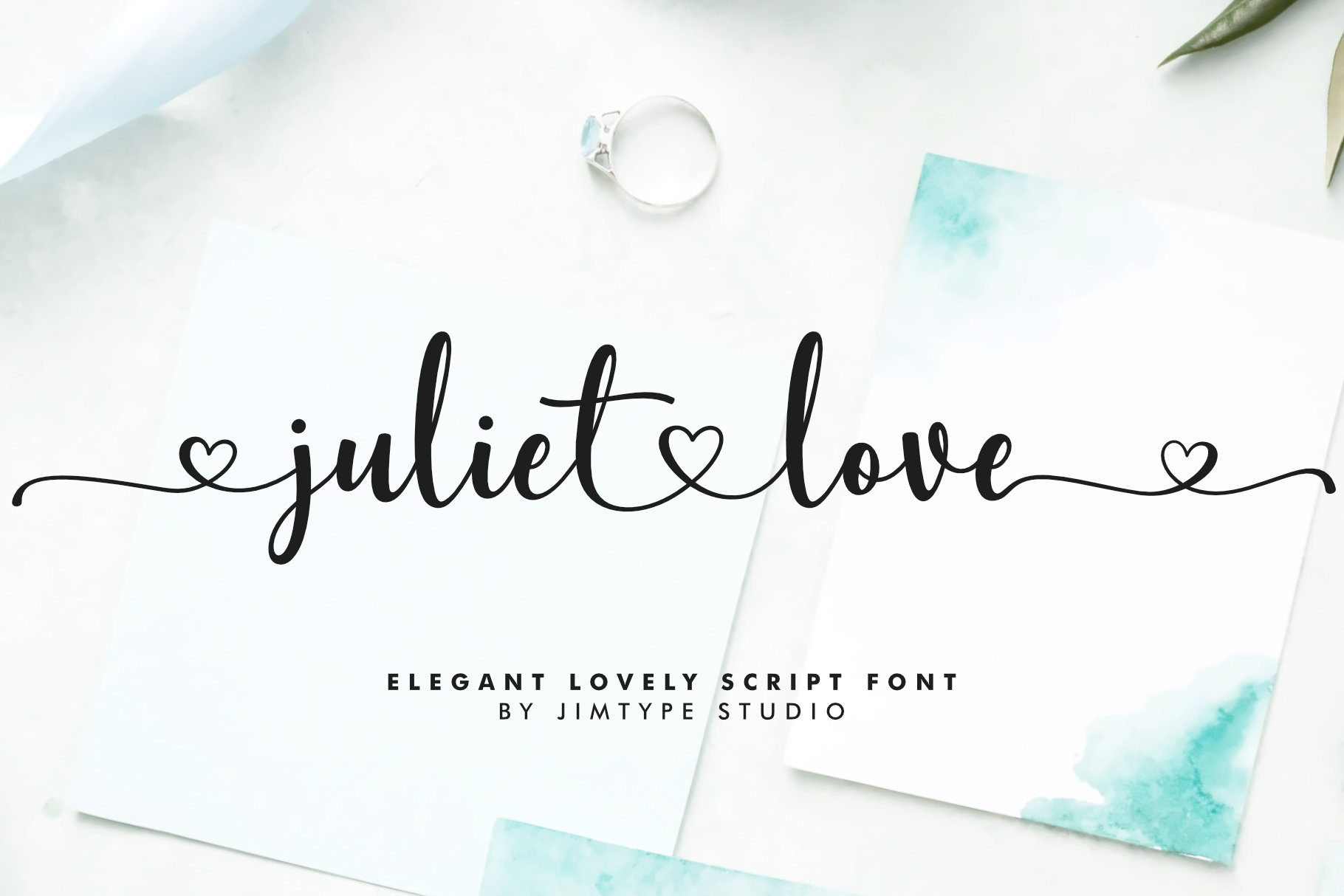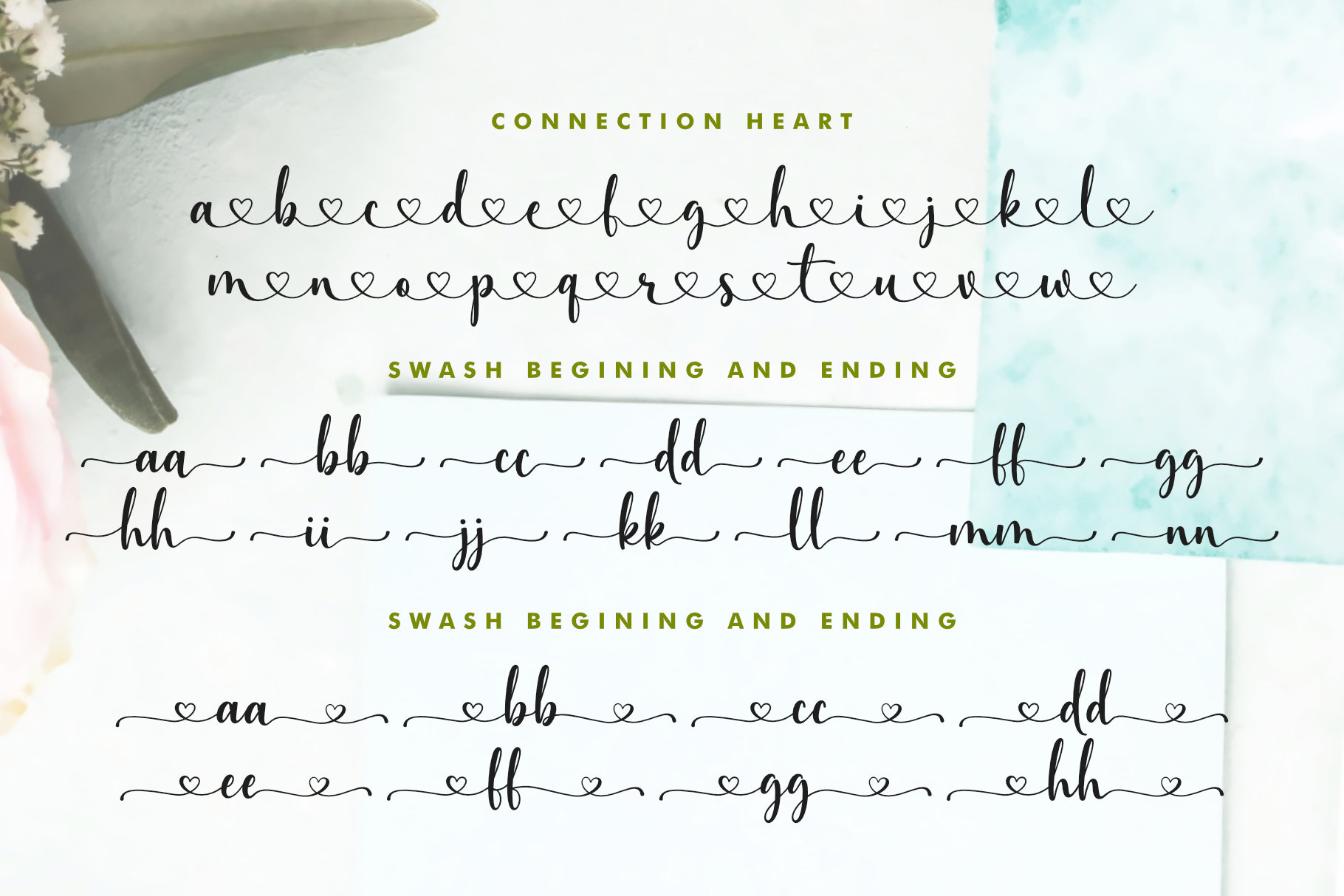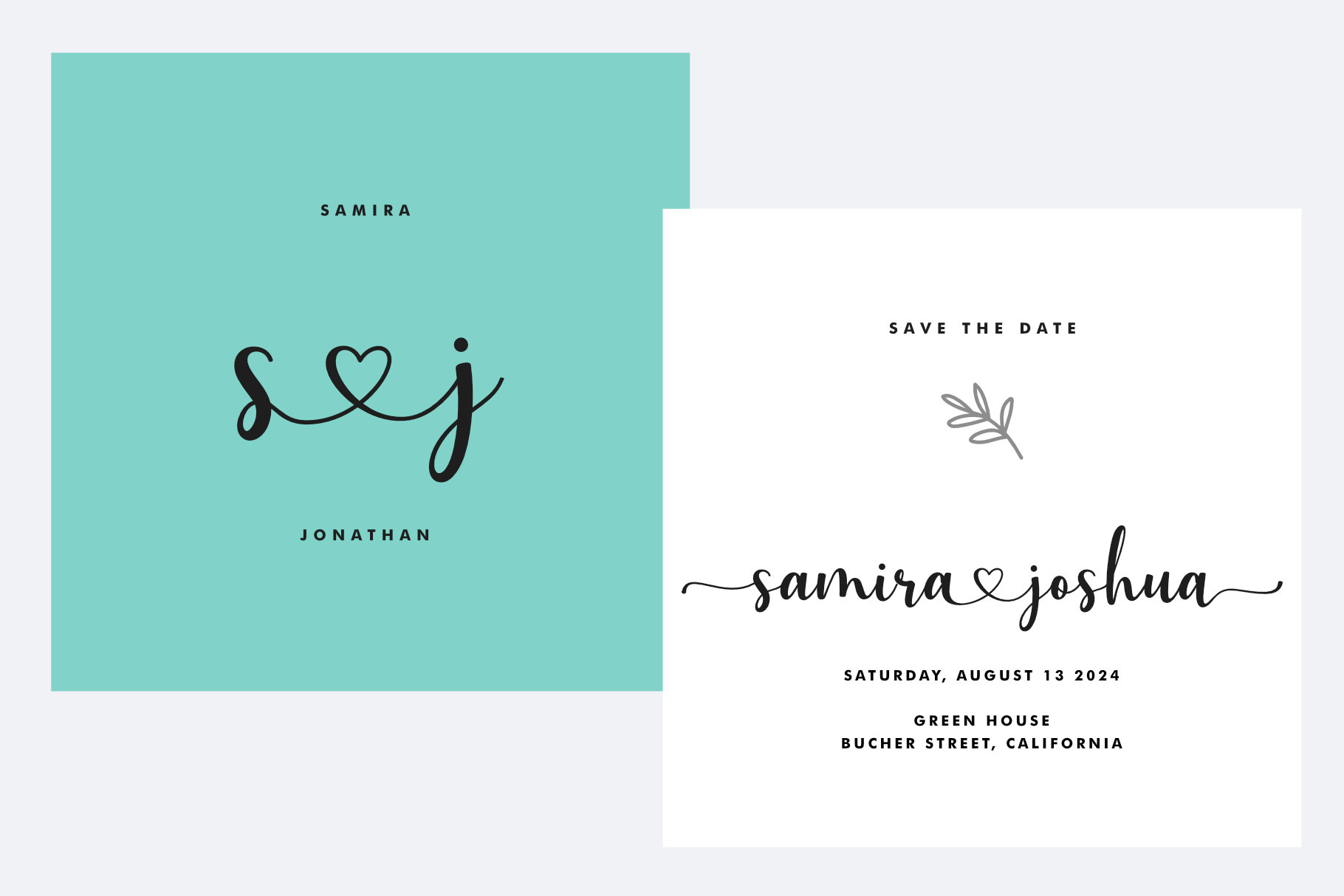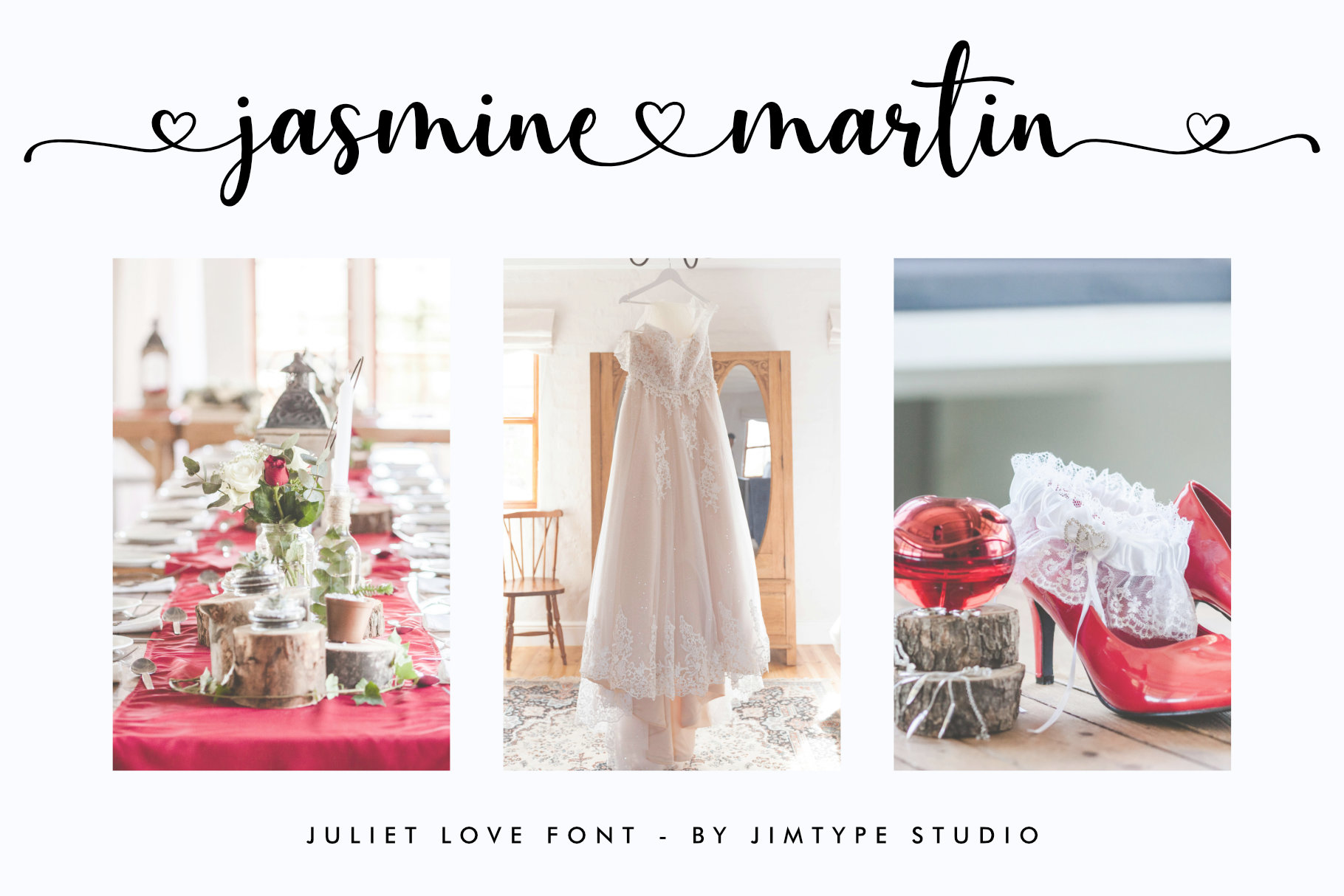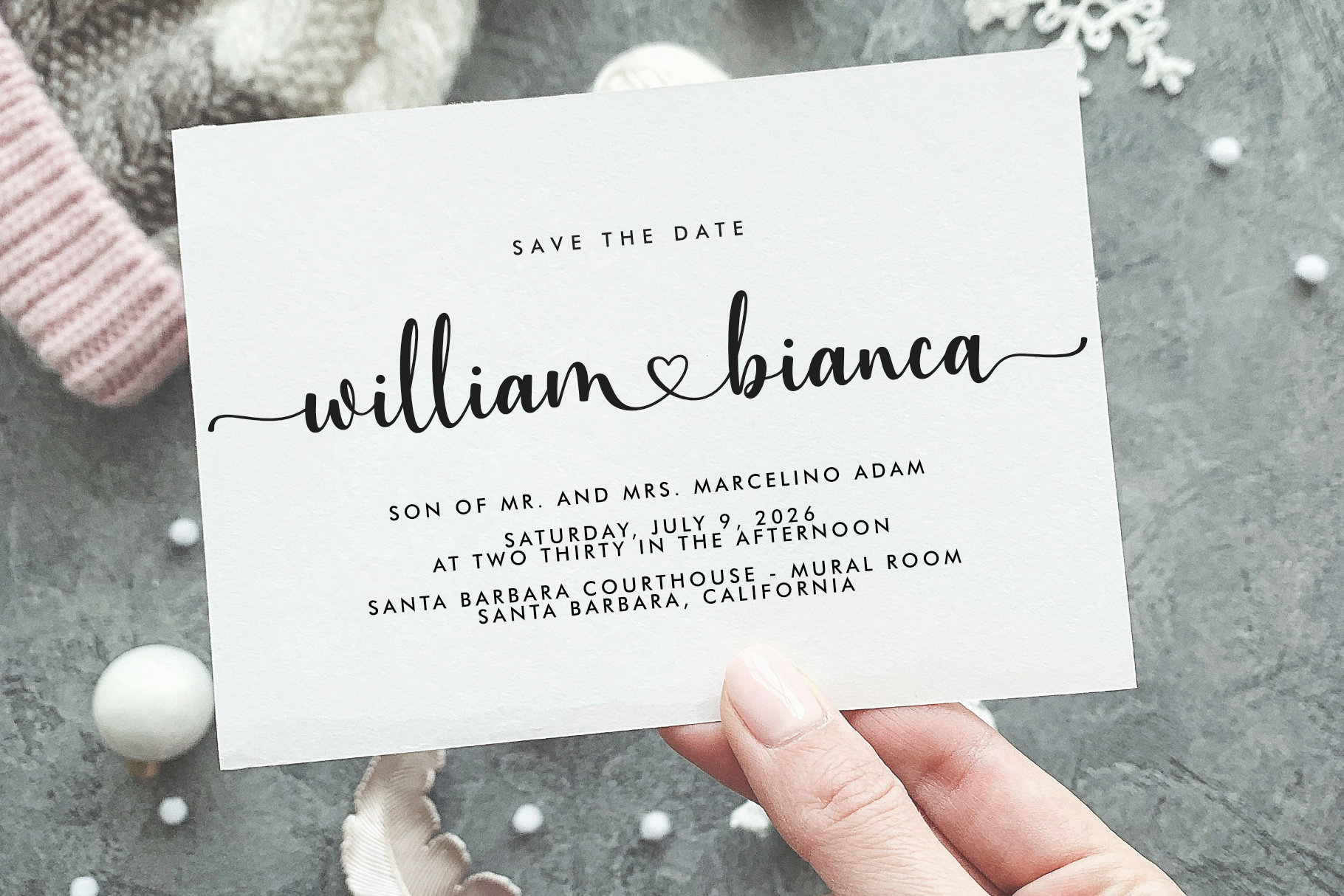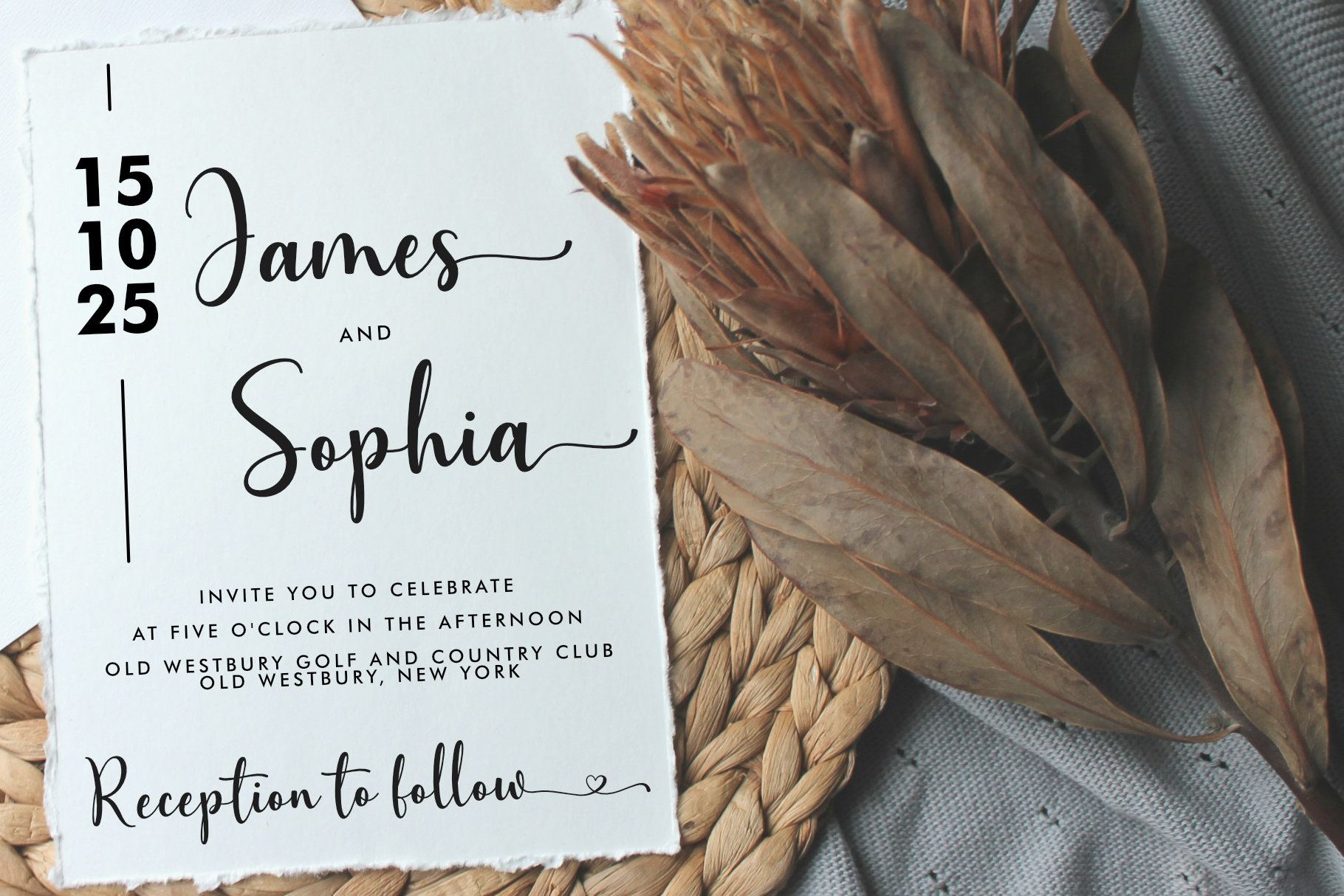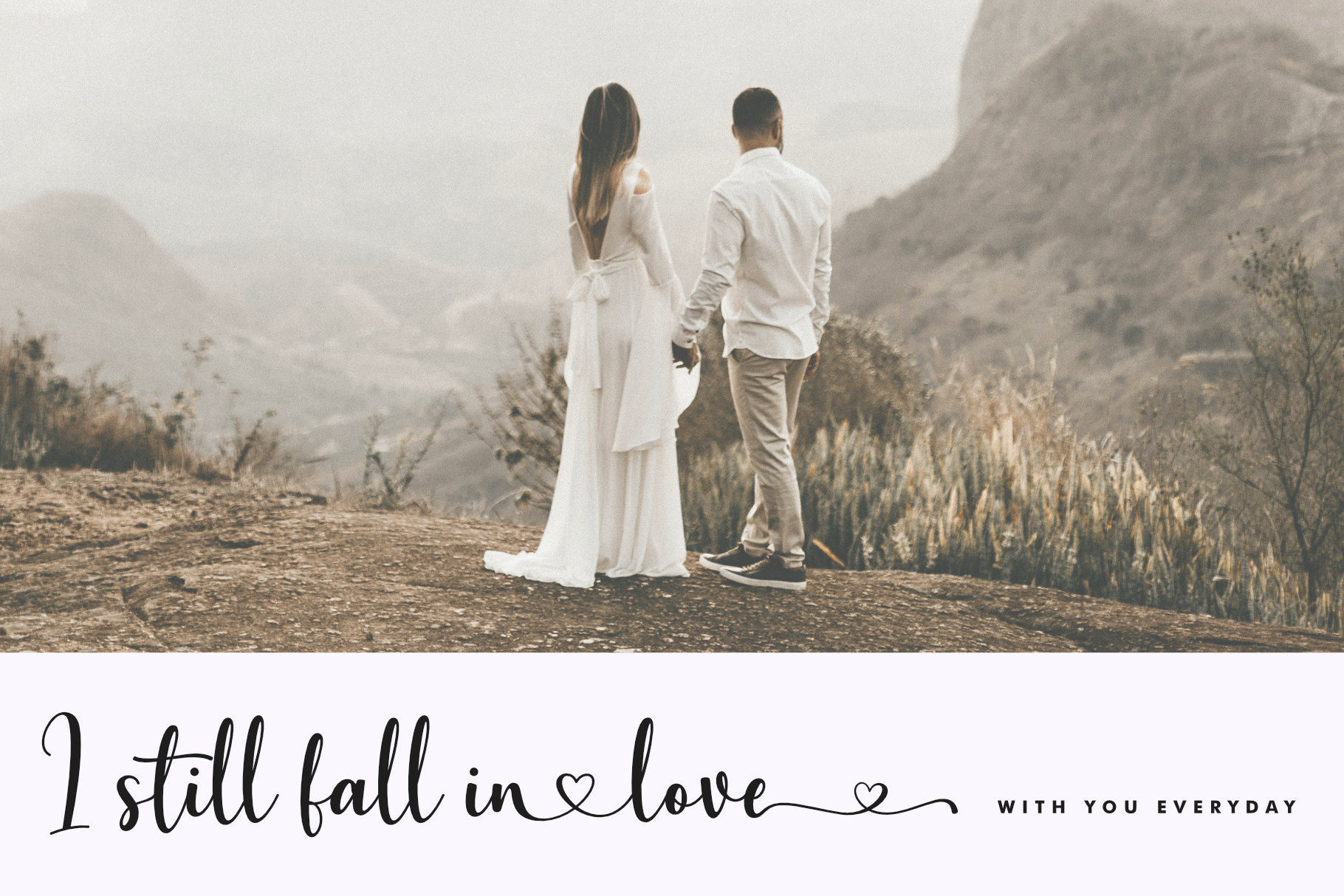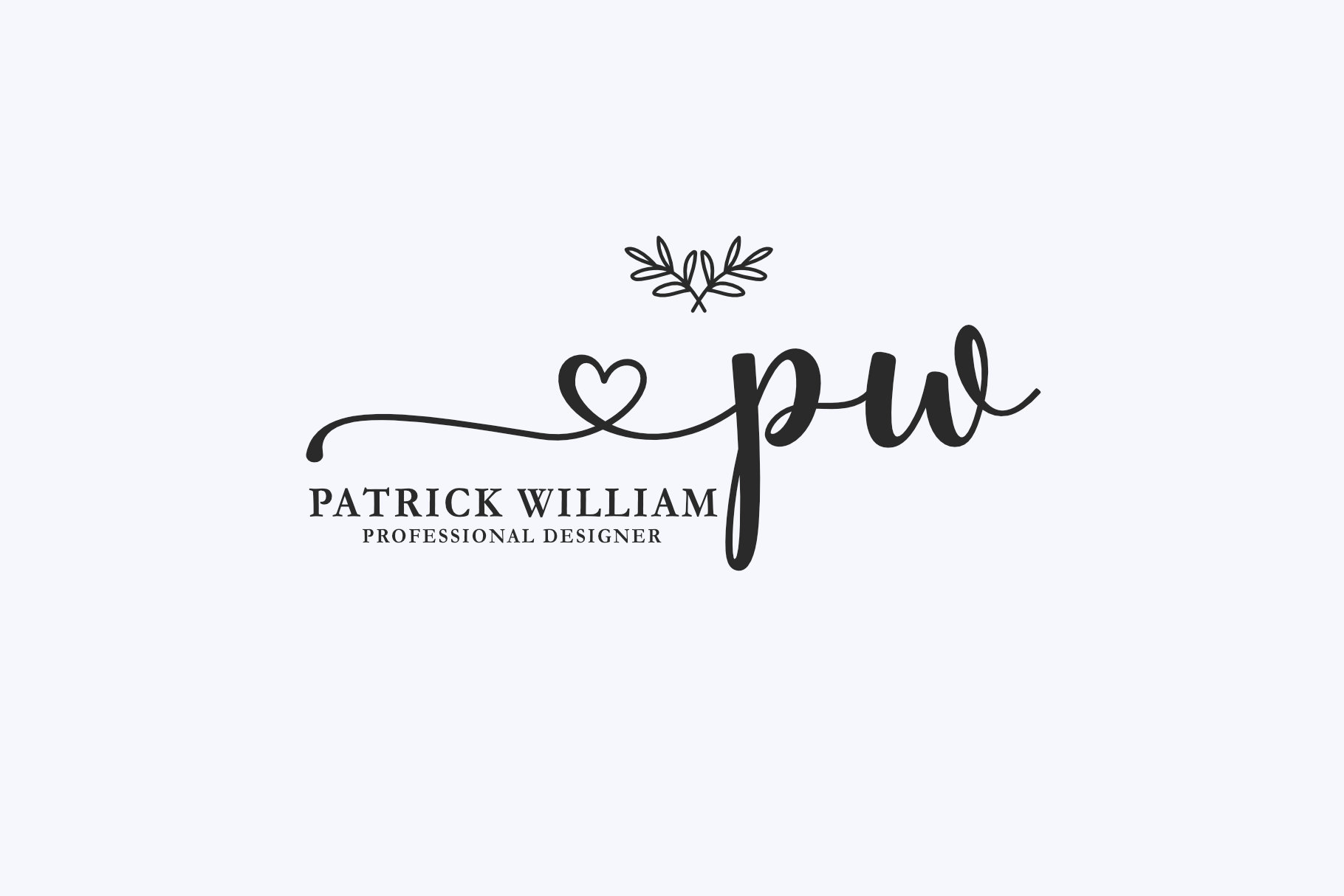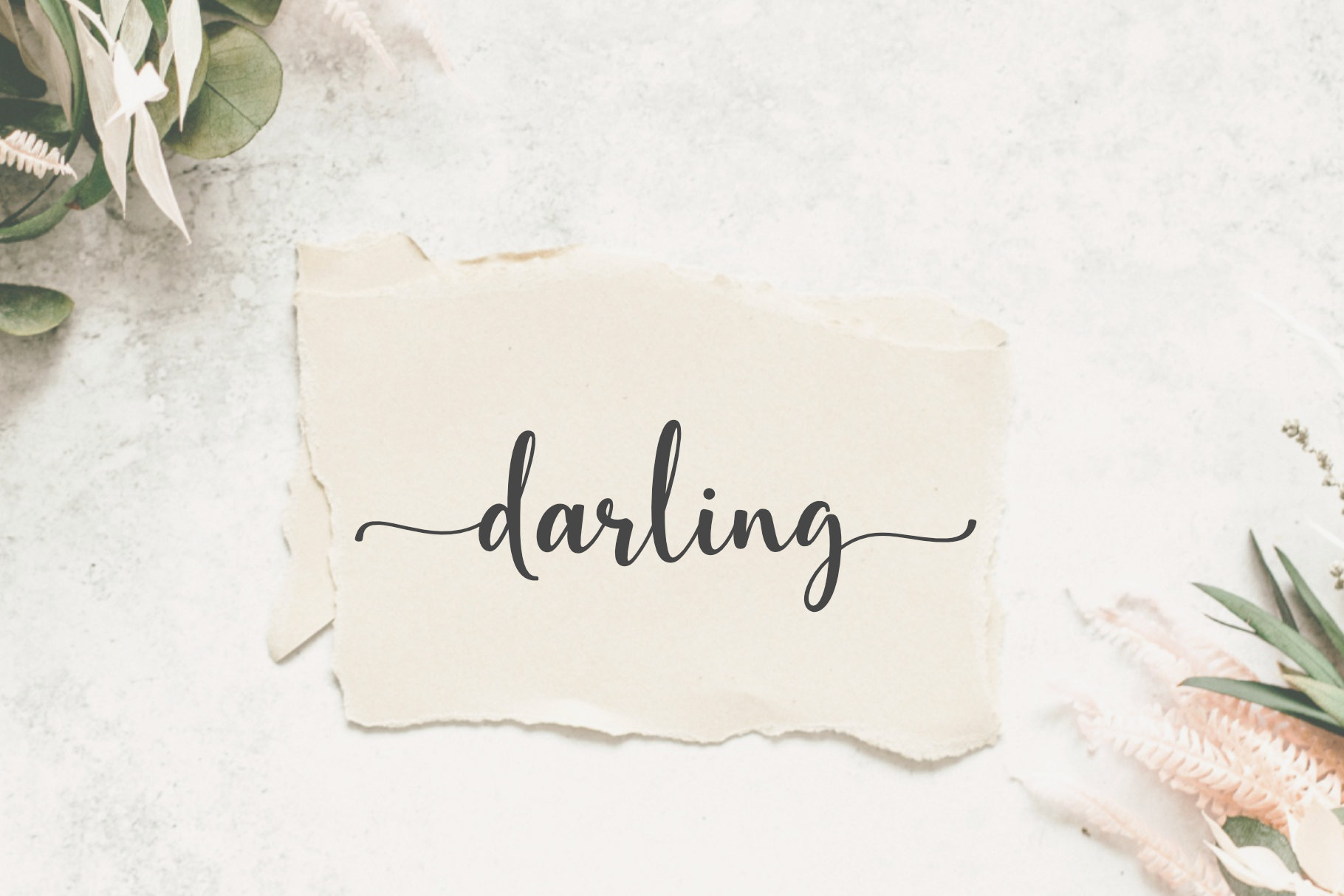
Juliet Love – Wedding Branding Font Jimtype Studio
Introducing Juliet Love Font, a stunning typeface perfect for wedding themes, featuring elegant script swashes.
Unique heart connections between letters infuse your designs with a romantic charm, creating an unforgettable visual appeal.
Juliet Love Font is your go-to solution for projects that demand romance and elegance. Ideal for weddings, branding, and heartfelt designs, this font ensures your work radiates beauty and sophistication.
Use the following combos for :
lowercase heart connect
type: a& (lowercase letter ampersand)
For example: amelia&amanda
lowercase beginning and ending swash:
type: -a or a- (hyphenminus lowercase letter or lowercase letter hyphenminus)
For example: -amelia- -amanda-
lowercase beginning and ending swash with heart:
type: _a or a_ (underscore lowercase letter or lowercase letter underscore)
For example: _amelia_ _amanda_
You can also combine swash beginning and ending with heart connect, with a combo:
For example: -amel&lia-
(hyphenminus lowercase letter ampersand lowercase letter)